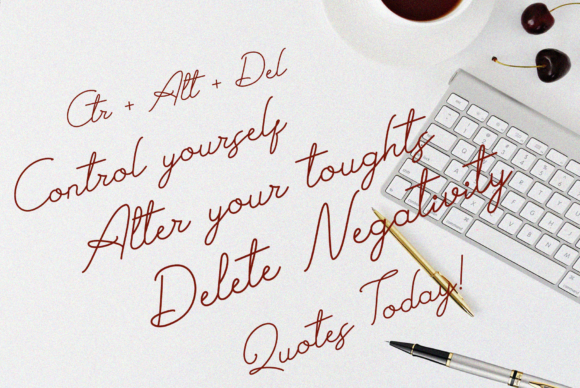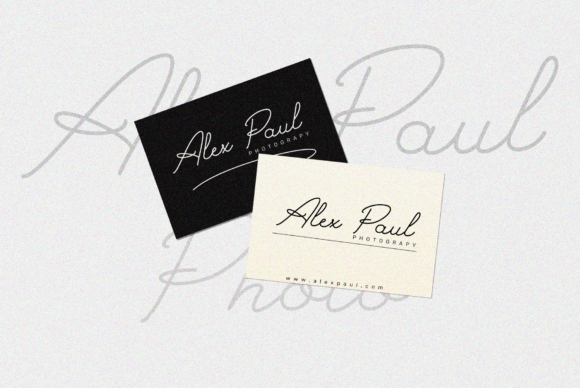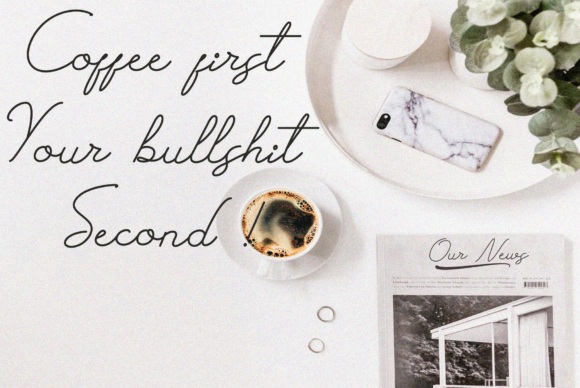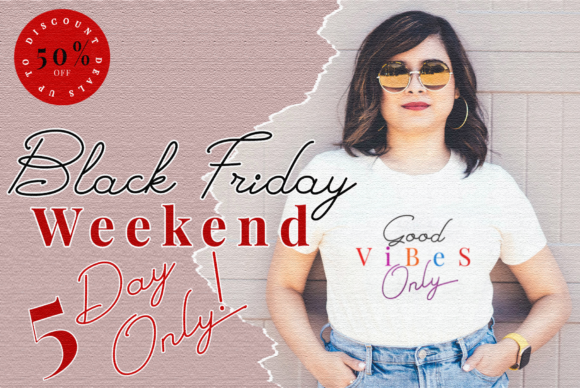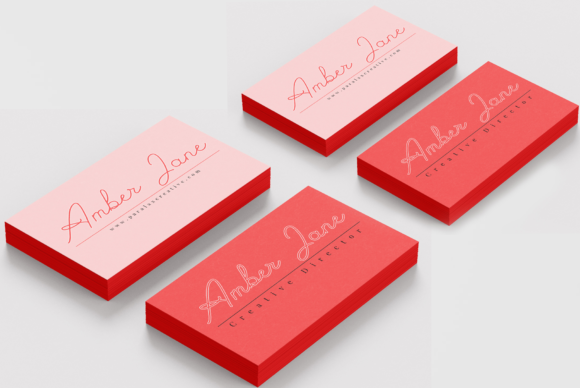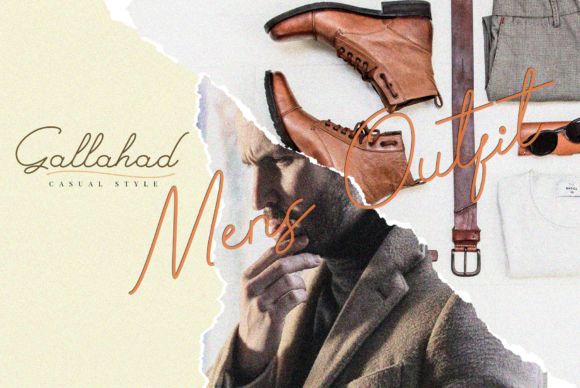
Introducing Backtrack Script Font: Elevate Your Designs with Elegance
Are you on the hunt for a font that exudes elegance, sophistication, and a touch of modern flair? Look no further than the Backtrack Script Font. This beautiful, handwritten font is designed to take your creative projects to new heights, making it perfect for designers, crafters, and anyone looking to add a dash of class to their work.
The Charm of Backtrack Script
Backtrack Script is an elegant and flowing handwritten font that boasts a unique charm. Its varying baseline, smooth lines, and gorgeous glyphs work in harmony to create a visually stunning effect that is sure to captivate your audience. The font’s classy calligraphic influences are balanced by a contemporary feel, making it incredibly versatile and suitable for a wide range of projects.
One of the standout features of Backtrack Script is its PUA (Private Use Area) encoding. This means that accessing all of the font’s glyphs and swashes is incredibly easy. With PUA encoding, you can effortlessly navigate through the font’s extensive range of characters and decorative elements, allowing you to bring your creative vision to life without any hassle.
Stunning Features of Backtrack Script
- Varying Baseline: The font’s varying baseline adds a touch of organic, handwritten charm, making each letter and word unique.
- Smooth Lines: The smooth, flowing lines of Backtrack Script create a beautiful, elegant effect that is perfect for designs that require a sophisticated touch.
- Gorgeous Glyphs: The font features an impressive range of glyphs, including stunning alternates that allow you to add an extra layer of creativity to your designs.
- Stunning Alternates: With a wide range of alternates to choose from, you can easily experiment with different styles and variations to find the perfect fit for your project.
Backtrack Script is an incredibly versatile font that can be used for a wide range of projects, including:
- Branding and Logo Design: The font’s elegant, sophisticated feel makes it perfect for creating high-end logos and brand identities.
- Stationery and Invitations: Add a touch of class to your stationery, invitations, and greeting cards with the beautiful, flowing lines of Backtrack Script.
- Packaging and Product Design: The font’s unique charm and versatility make it an excellent choice for packaging and product design projects.
- Digital Media: Use Backtrack Script to create stunning digital media, including social media graphics, blog headers, and more.
Why Choose Backtrack Script?
With so many fonts to choose from, why should you opt for Backtrack Script? Here are just a few reasons why this font stands out from the crowd:
- Elegant and Sophisticated: The font’s elegant, sophisticated feel makes it perfect for designs that require a touch of class.
- Versatile: Backtrack Script is incredibly versatile, making it suitable for a wide range of projects and applications.
- Easy to Use: The font’s PUA encoding makes it easy to access all of the glyphs and swashes, allowing you to bring your creative vision to life without any hassle.
In conclusion, Backtrack Script Font is an exceptional addition to any designer’s toolkit. Its elegant, flowing lines, gorgeous glyphs, and stunning alternates make it the perfect choice for projects that require a touch of sophistication and class. With its PUA encoding and versatility, Backtrack Script is sure to become a go-to font for designers and crafters alike. So why wait? Fall in love with Backtrack Script and take your designs to the highest levels!